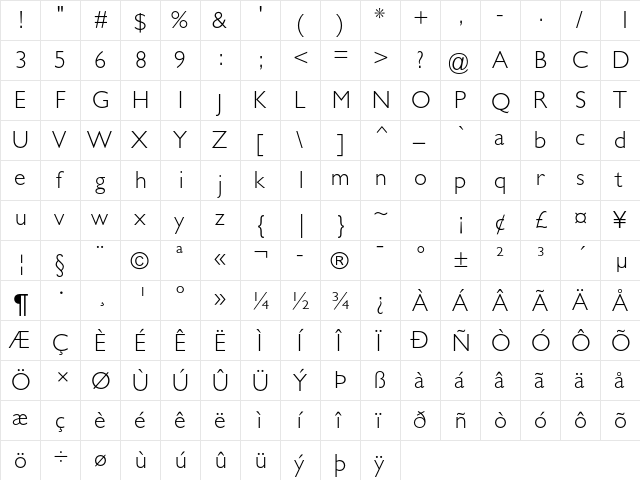
Gill Sans Std Light
| Designer | Eric Gill |
Design Context for Gill Sans Std Typeface
Gill Sans Std takes a measured approach to typography — its balanced proportions and neutral character make it a reliable workhorse for both digital and print work. Its slender proportions lend an understated elegance to any composition.